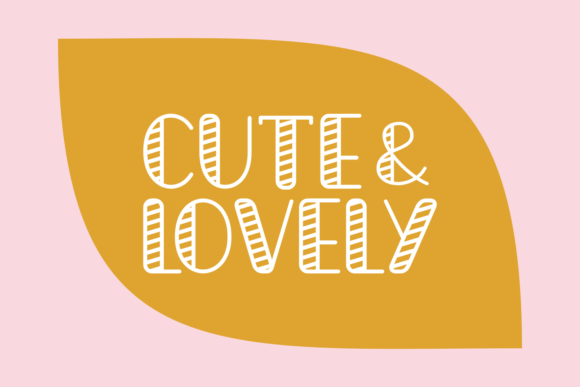
Introduction to Linely Font
Have you ever found yourself staring at a blank canvas, waiting for inspiration to strike? That’s exactly what happened to me when I was working on a creative project, and I desperately needed a font that would elevate my design to the next level. That’s when I stumbled upon the Linely Font – a game-changer in the world of typography.
With its clean lines and minimalist aesthetic, the Linely Font is the perfect design resource for any creative project. Whether you’re working on a high-quality poster, flyer, or print, this adaptable display font is sure to make a statement. And the best part? It’s completely free to download, making it an accessible and valuable addition to any designer’s toolkit.
But what really sets the Linely Font apart is its versatility. With a transparent background, you can easily layer it over any image or design element, creating a seamless and professional look. Whether you’re a seasoned designer or just starting out, the Linely Font is an essential tool to have in your design arsenal.
Key Features of Linely Font
- High-quality, professional font design ideal for creative projects and design resources.
- Comes with a transparent background, allowing for seamless integration with any design.
- Unique, creative font style that adds a touch of elegance and sophistication to any design project.
Honest Review: Linely Font
I recently had the chance to experiment with the Linely Font, and I must say it’s a great addition to any designer’s toolkit. This high-quality font is perfect for any creative project that requires a unique touch.
One of the things I love about the Linely Font is its versatility. With a range of styles and weights, it’s easy to find the perfect fit for your design. Plus, the transparent background makes it super easy to use in conjunction with other design elements.
Here are some of the things that work well with the Linely Font:
- ✨ Unique and modern design aesthetic
- ✨ High-quality vector graphics
- ✨ Easy to use and customize
Of course, no font is perfect, and the Linely Font is no exception. Some limitations I’ve noticed include:
- ⚠️ Limited character set
- ⚠️ Not suitable for large-scale text
Overall, I’m really impressed with the Linely Font. It’s a great design resource that’s perfect for designers of all levels. With a little creativity, it can really elevate your projects and make them stand out.
Linely Font
Tips for Getting the Most Out of Linely Font
To get the most out of Linely Font, be sure to use it with a transparent background to achieve a seamless design. Additionally, experiment with different font sizes and colors to add depth and visual interest to your design.
Linely Font is ideal for use in a variety of creative projects, including graphic design, digital art, and print materials. Some common use cases include:
- Creating eye-catching logos and branding materials
- Designing engaging social media graphics and ads
- Developing high-quality print materials, such as business cards and brochures
Conclusion
Linely Font is a versatile and high-quality design resource that is perfect for any creative project. With its transparent background and customizable design options, it’s easy to see why Linely Font is a popular choice among designers and artists.
Can I modify or customize the Linely Font for my specific design needs?
While the Linely Font is a high-quality design resource, it is not designed to be modified or customized. However, you can use the font in conjunction with other design elements, such as graphics or illustrations, to create a unique visual identity for your project. Additionally, you can experiment with different font sizes, colors, and arrangements to achieve the desired design effect.